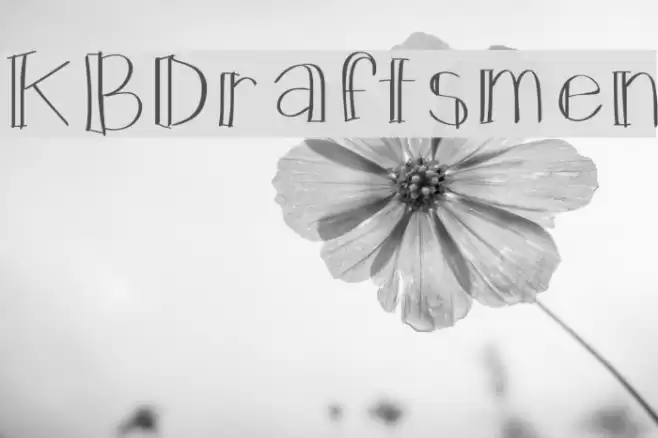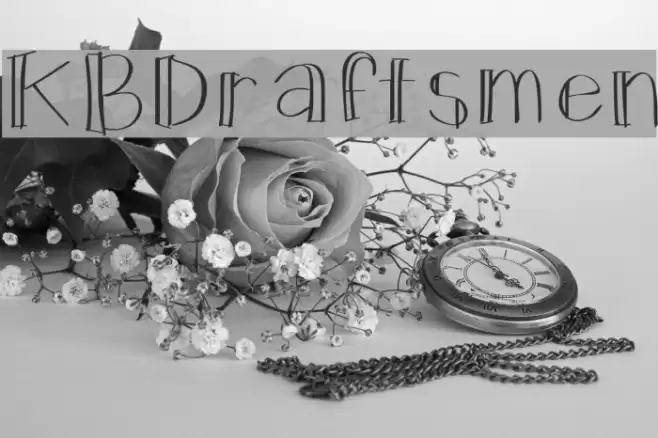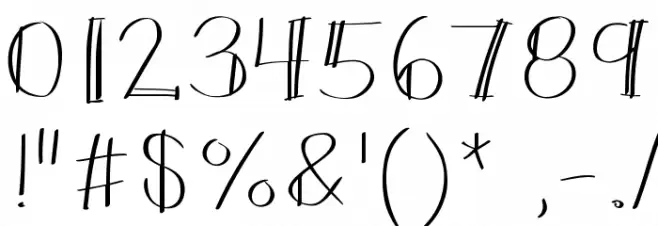
KBDraftsmen Font
KBDraftsmen Description
This font features a playful and artistic style with a hand-drawn appearance. The characters are tall and narrow, with a whimsical flair that includes slight irregularities and variations in stroke width. The uppercase letters are bold and dynamic, while the lowercase letters maintain a consistent flow with a slightly more relaxed form. Numbers and special characters follow the same artistic theme, making the font suitable for creative and informal designs. The overall look is both unique and approachable, perfect for adding a touch of personality to any project.
A playful, hand-drawn font with tall, narrow characters and artistic flair from Uncategorized fonts.